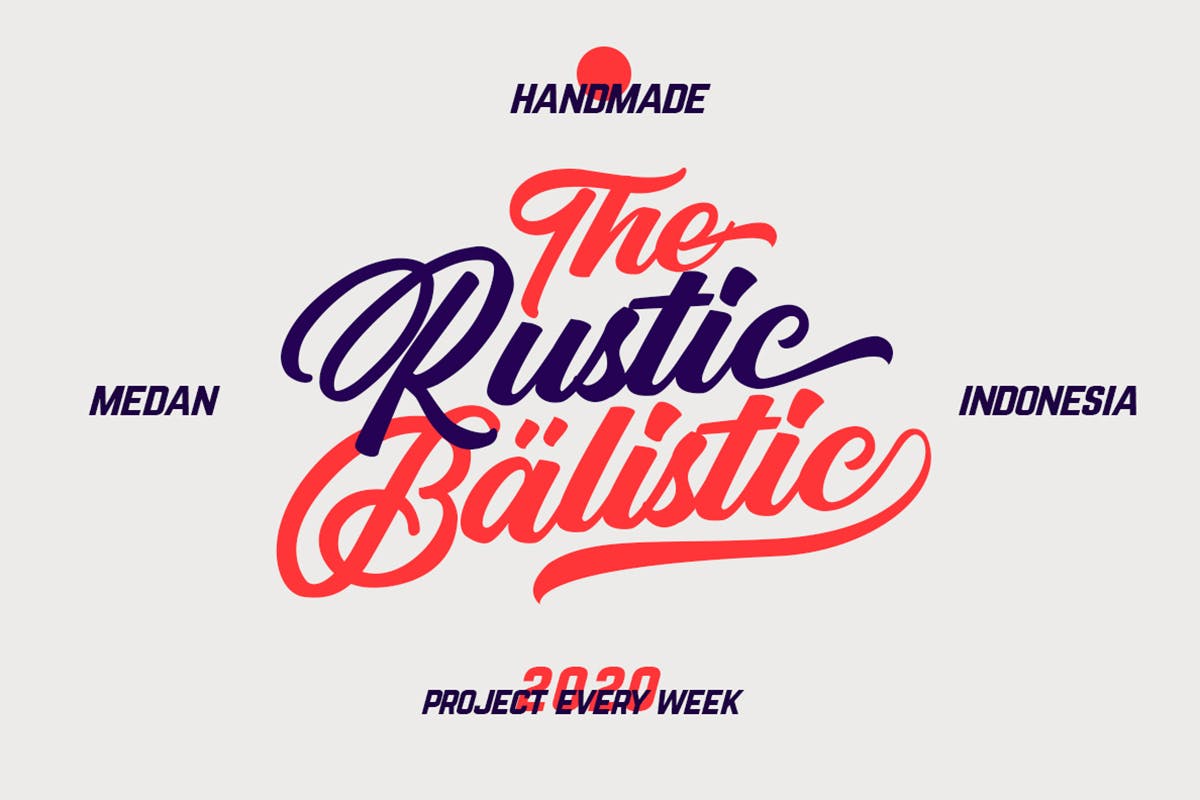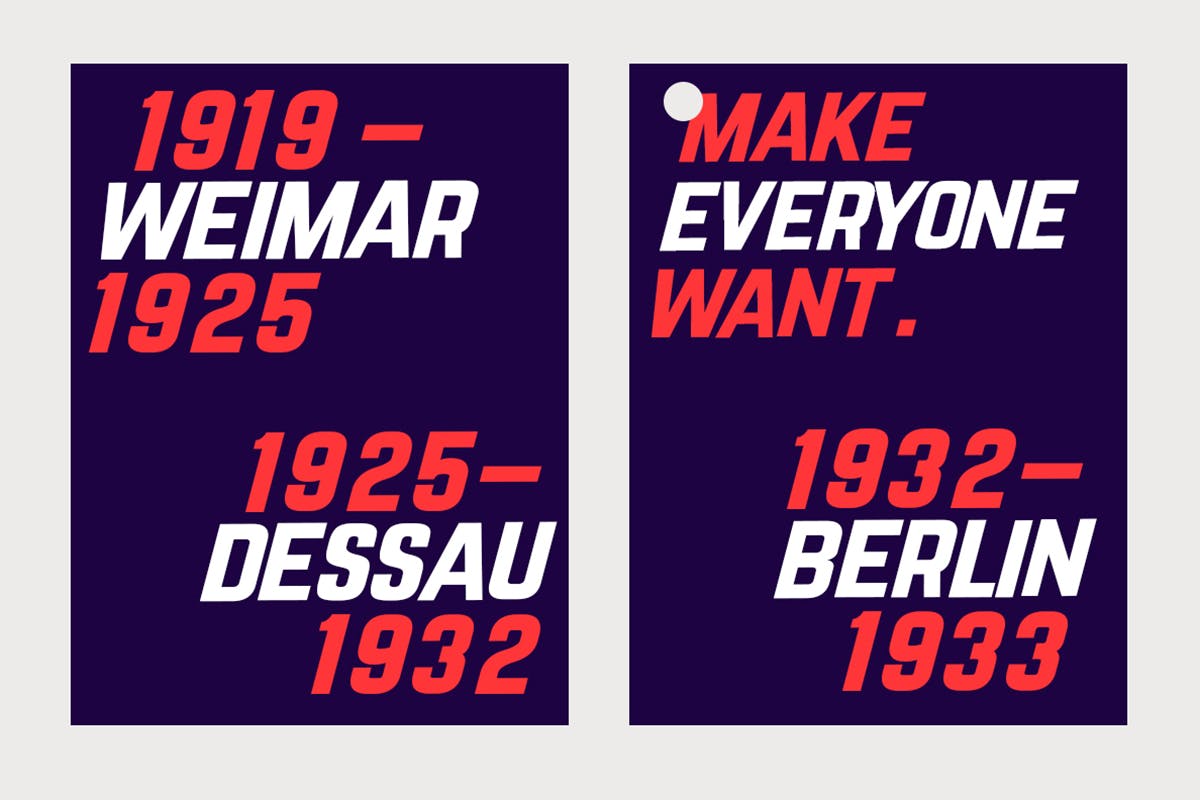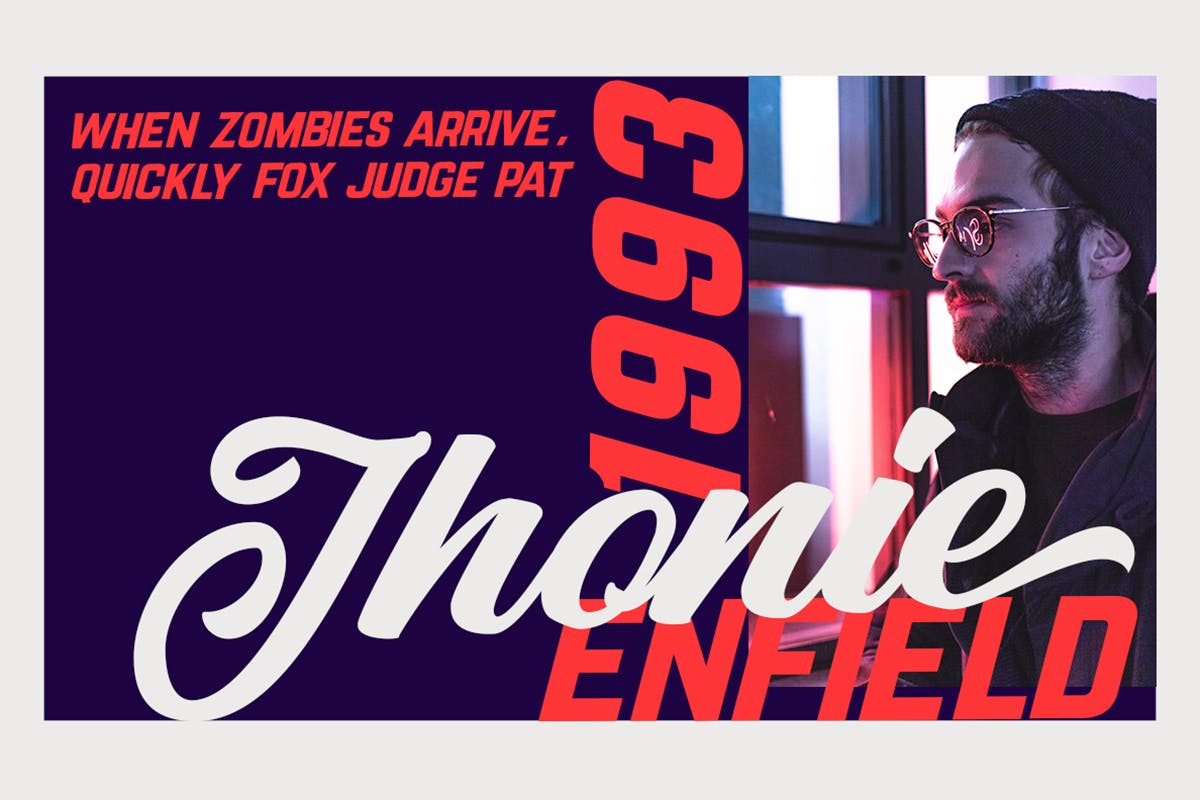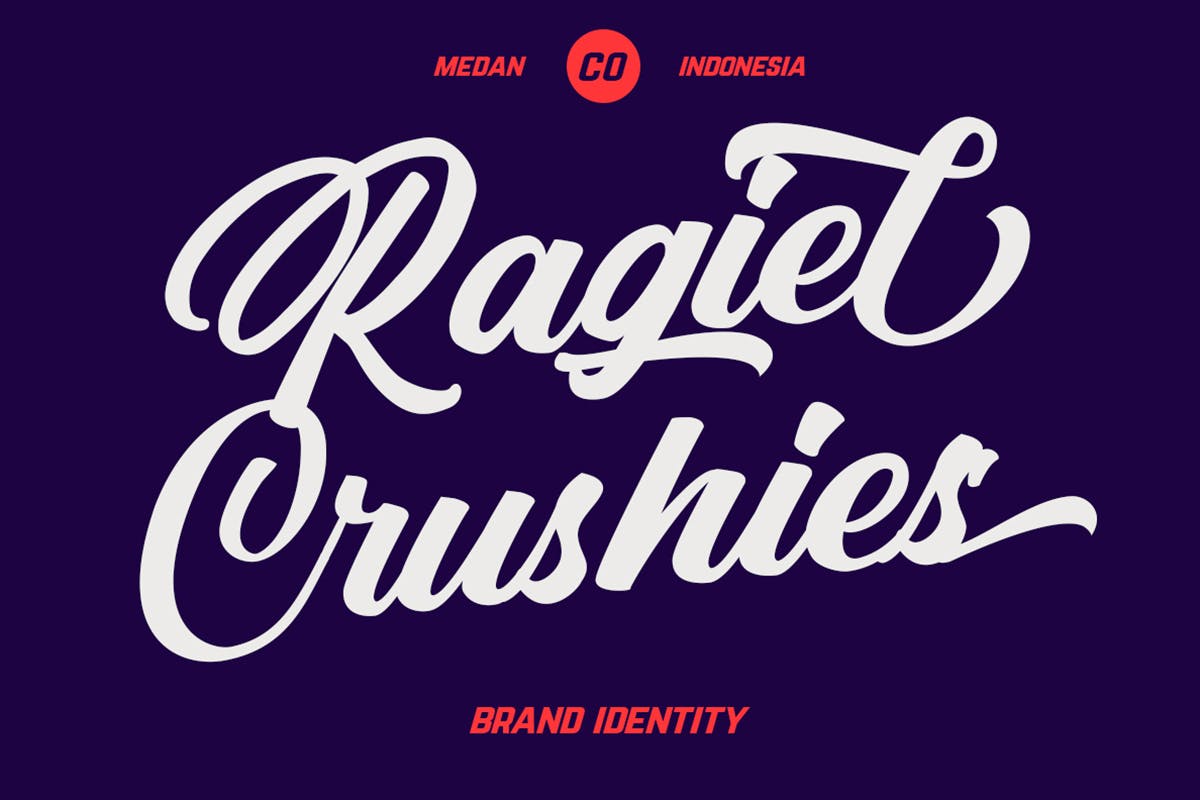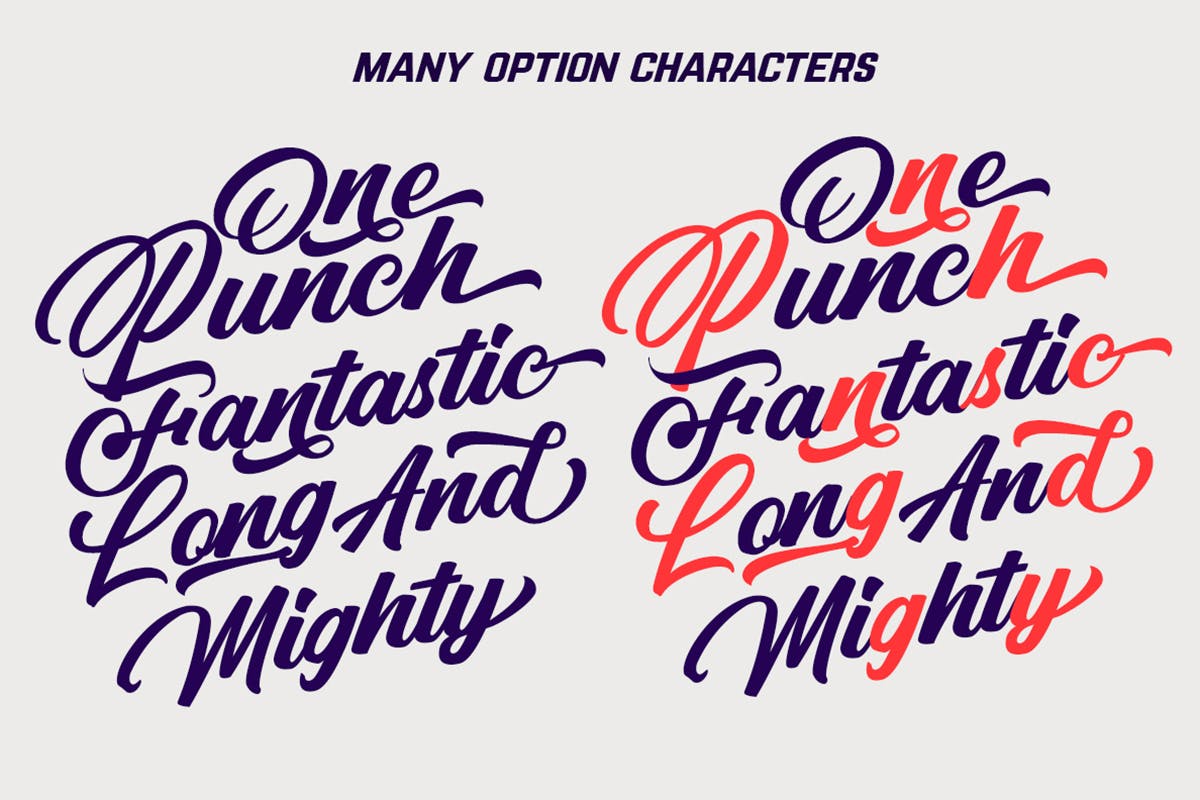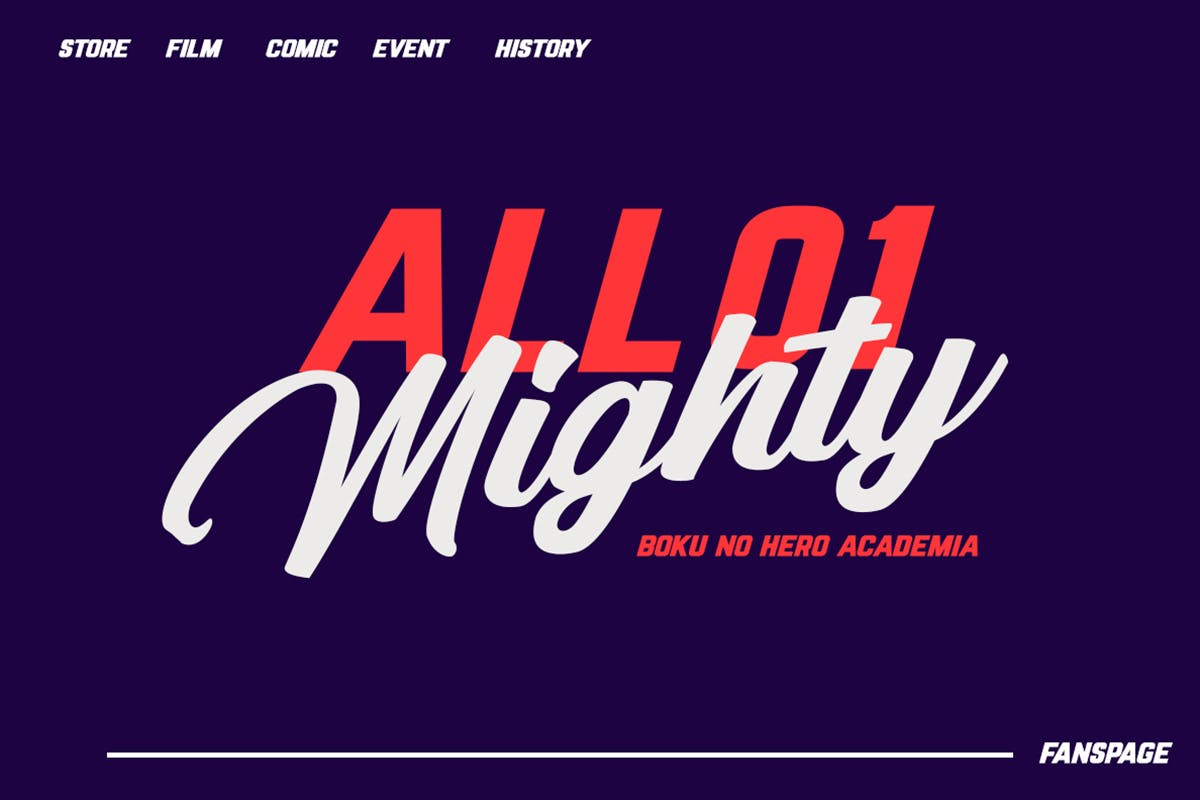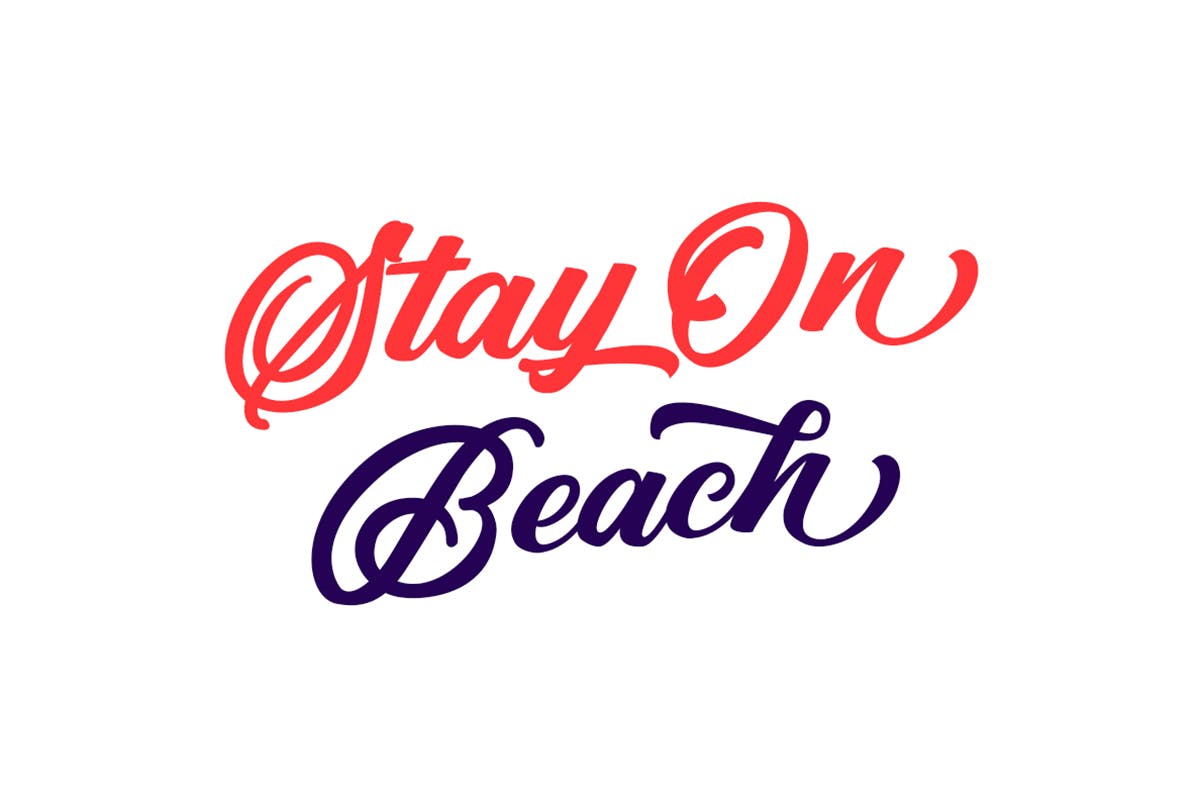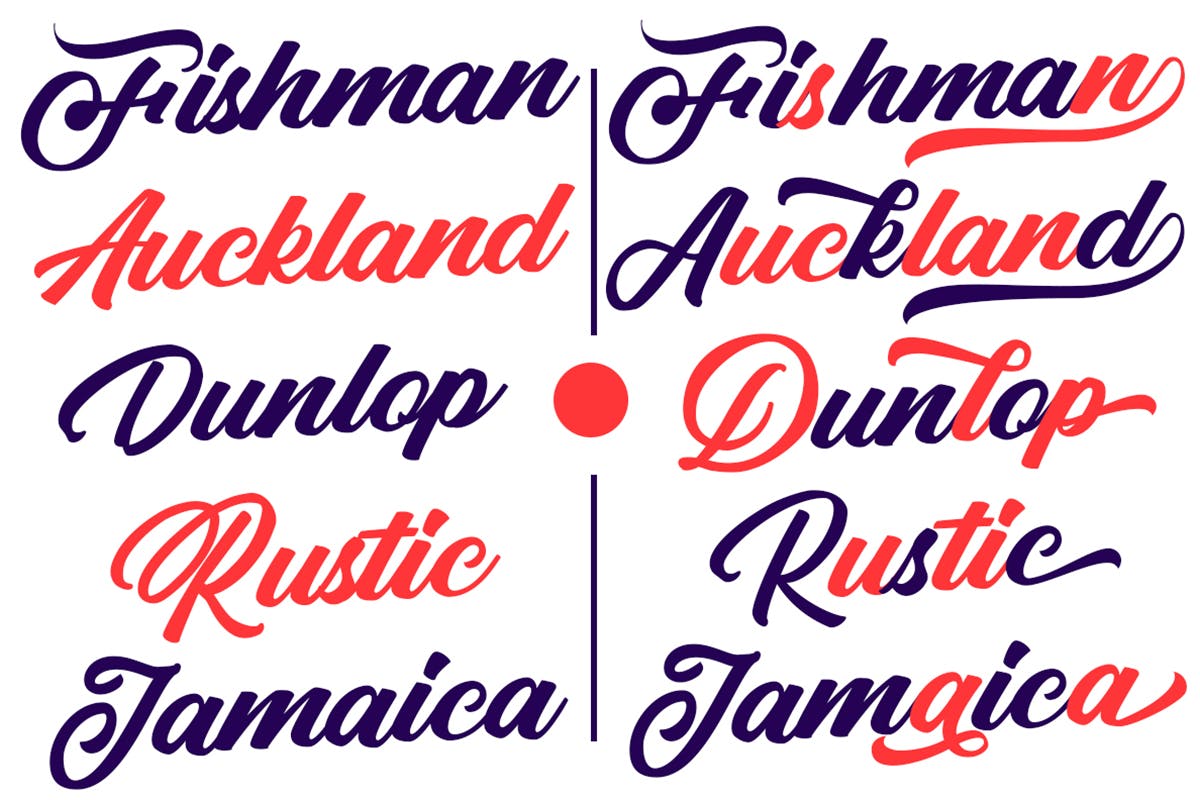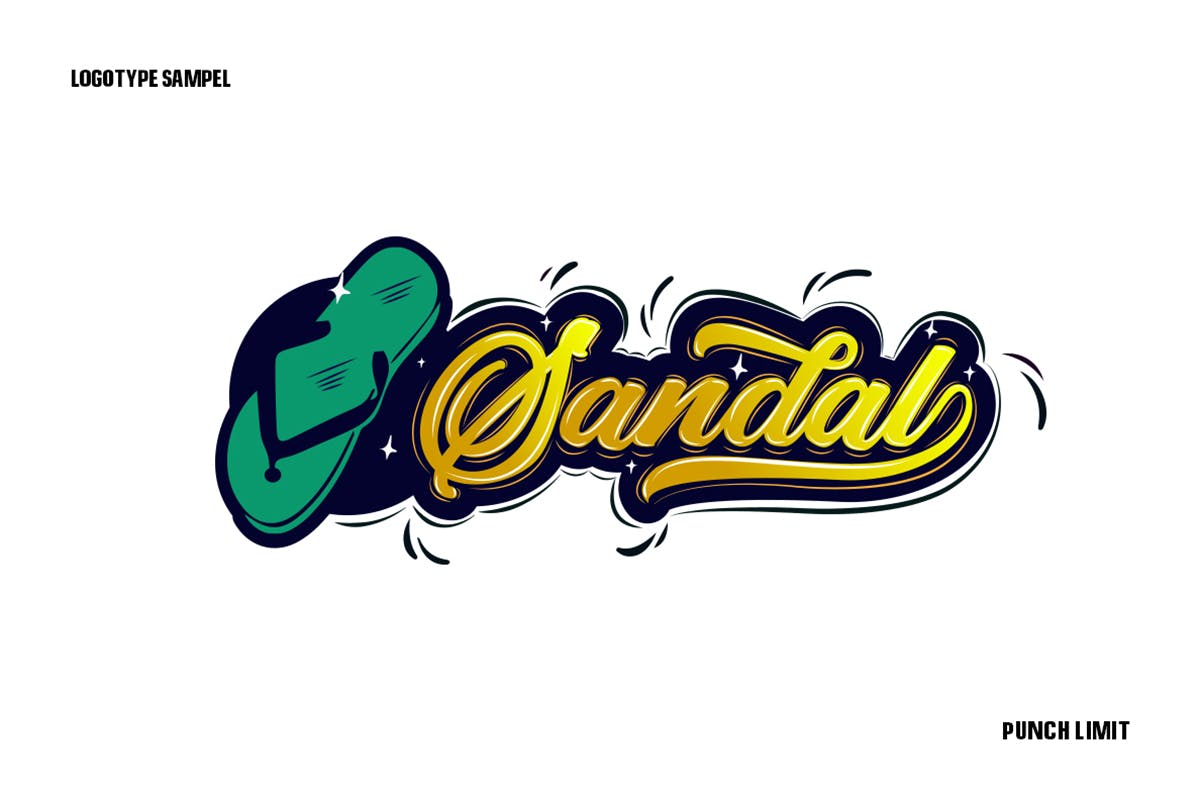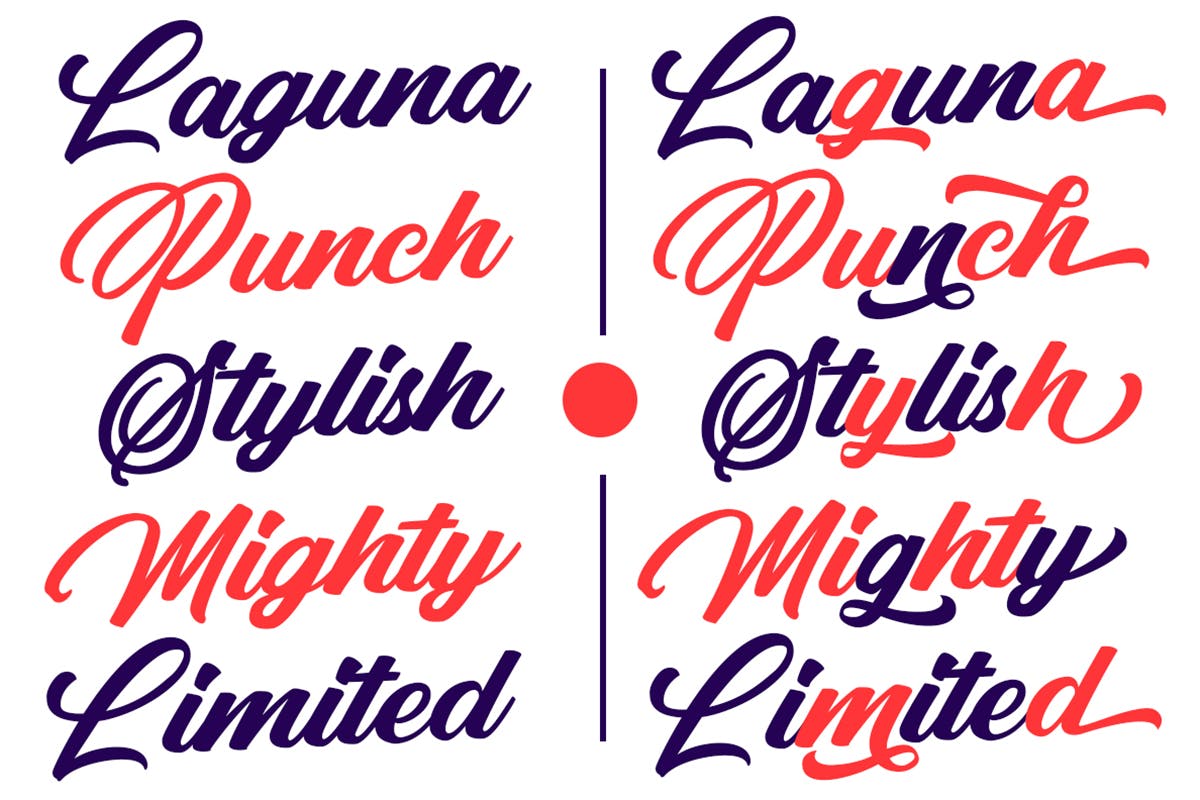
Free Punch Limit Font Combination
Free Punch Limit Font Combination is a dynamic duo font that brings together a gorgeous and elegant typeface. An oblique sans serif font perfectly complement each other. It will look especially great on industries such as gaming, sport, designs, arts, and much more. This flexible script typeface includes many alternatives ranging from different ss01-ss15 to each uppercase letter. It’s fun to use because every word can be changed to your needs and combined with oblique sans serif, it will look retro and classic. However, this free font is coming with a 100% free license, but you only get a style. If you want to get more, make a purchase first.